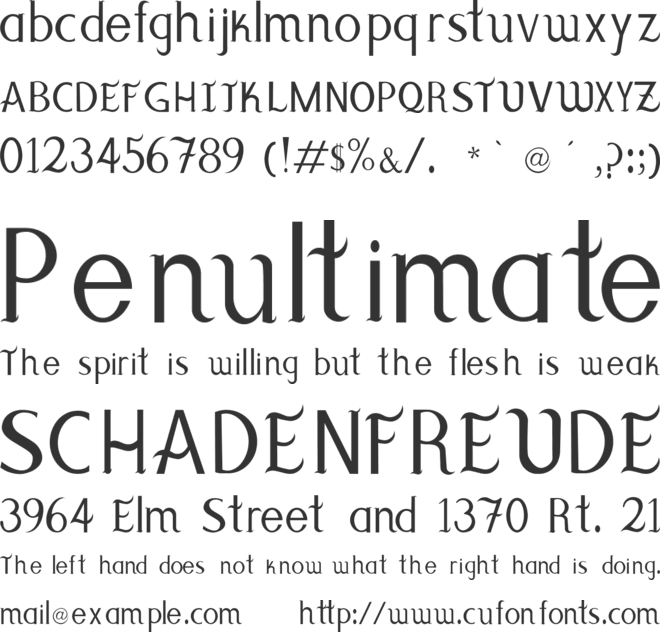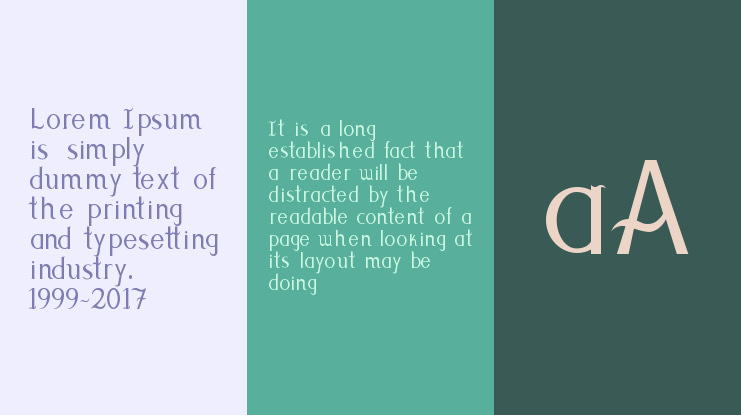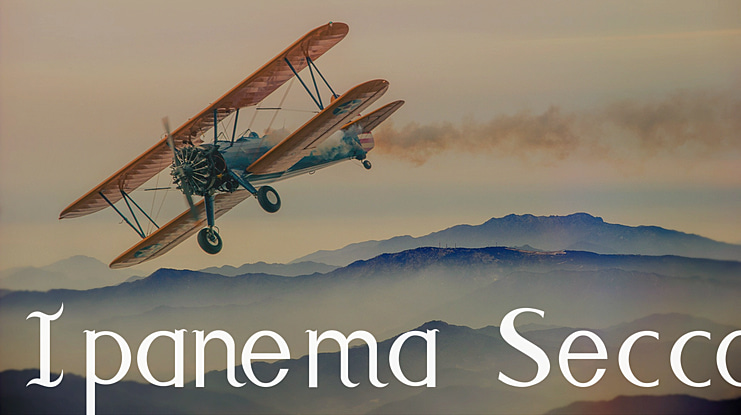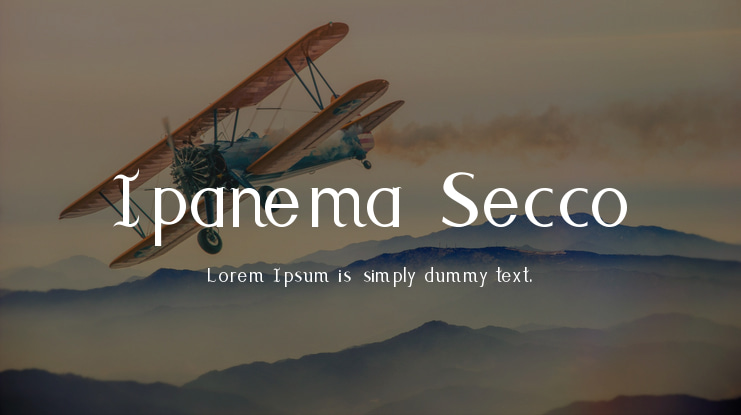
Ipanema Secco Font
Liliane Mendoza Secco
Free font, used for art proyects created by Liliane Mendoza. It represents Rio de Janerio, Brasil and its cool vibe.